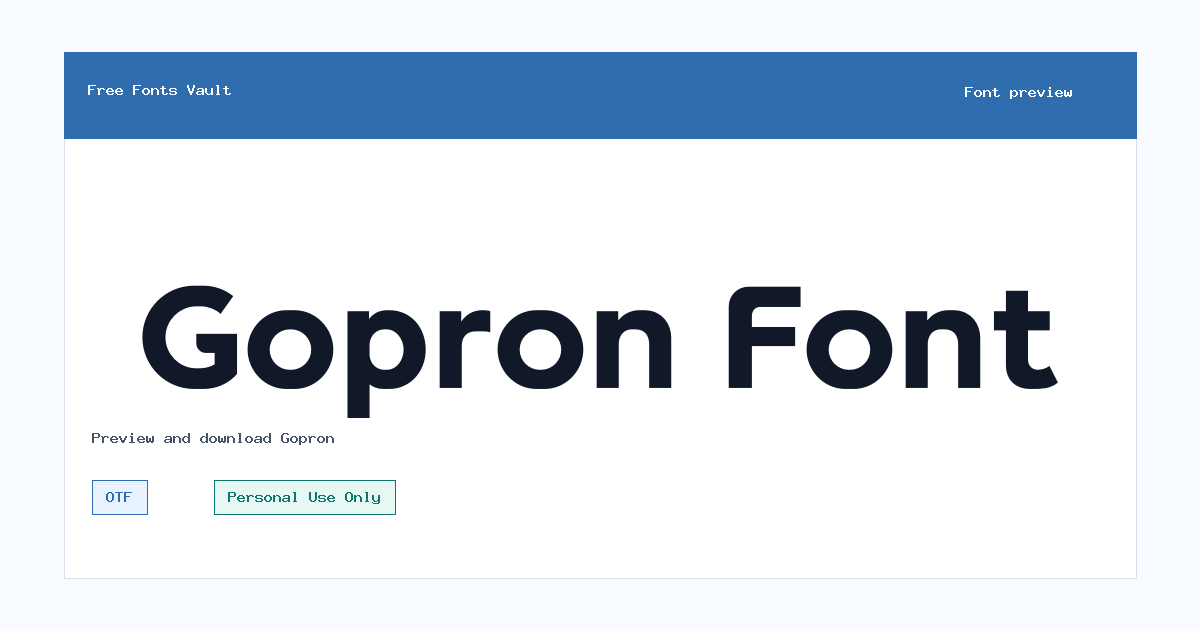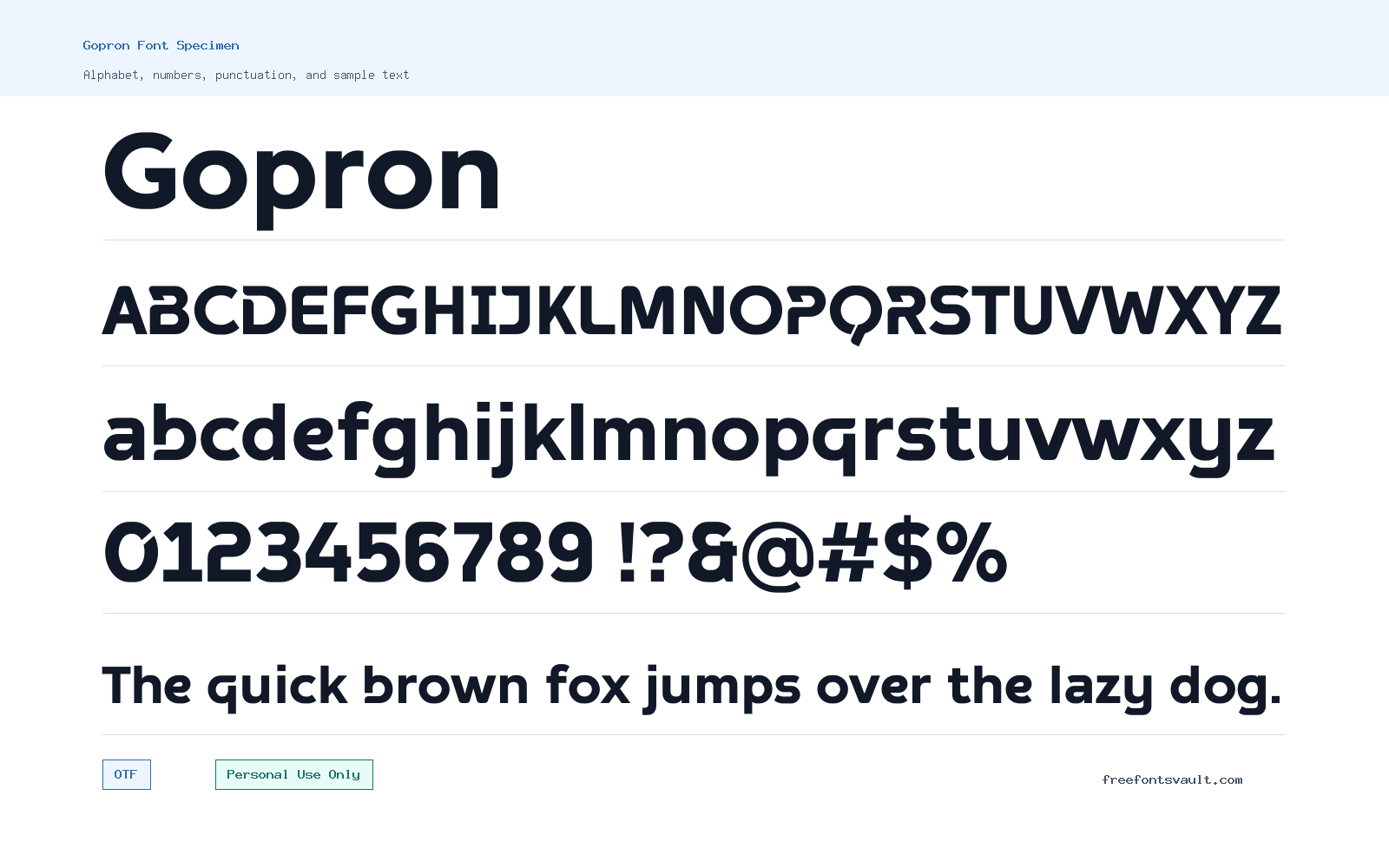
Gopron
- Designer Muhamad Yusron Billah
Gopron is a display font family by Muhamad Yusron Billah, offered in regular and italic styles. It is best suited for short, attention-focused text where you want a stronger personality than a plain body font.
About Gopron Font
Gopron works as a headline and display typeface rather than a long-reading text face. The family includes a standard upright style and a matching italic, which gives designers a little more flexibility when building titles, labels, posters, covers, or social graphics. Because it is a display font, it is worth previewing your exact words before downloading, especially if your design depends on a specific brand name, product title, or phrase.
Use Gopron where the words need to be noticed quickly. It can help with logos for personal mockups, event artwork, YouTube thumbnails, packaging concepts, apparel drafts, quote graphics, and other short-form layouts. For cleaner results, pair it with a simple sans serif or serif for supporting text, and keep Gopron for the main title or accent line. The italic style can be useful for secondary emphasis, but avoid using too many font effects at once; display fonts usually look better when spacing, size, and contrast do most of the work.
- Display font family with regular and italic styles
- Posters, thumbnails, covers, and short promotional graphics
- Personal branding mockups, title designs, and creative lettering tests
What styles are included with Gopron?
What kind of projects is Gopron good for?
Gopron is a good fit for short display text such as posters, titles, social media graphics, thumbnails, covers, packaging mockups, and personal logo concepts.
Can I use Gopron for body text?
It is better used for headlines and short phrases. For paragraphs or small text, pair it with a simpler, more readable font.
Who designed Gopron?
Gopron is credited to Muhamad Yusron Billah.